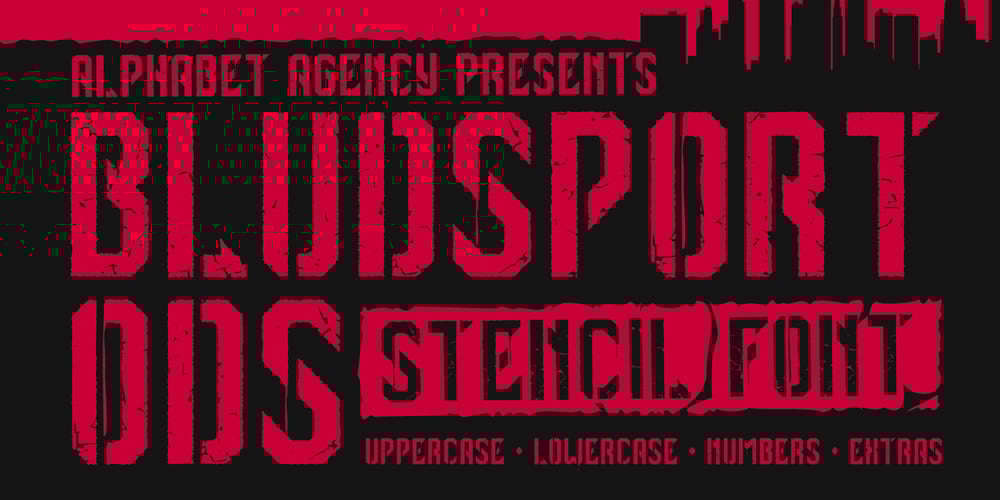
Bludsport ODS
Bludsport ODS font
Bludsport ODS Font Family was designed by Swinn Jonathan and published by Alphabet Agency. Bludsport ODS contains 1 styles and family package options. Alphabet Agency proudly presents Bludsport ODS font. The font design captures elements of war and gore with its grungy military stencil style.The font was designed for use in a variety of genres including in the film and television industry (war and horror), gaming industry, outdoors/survivalist industry and combat sport themes.Each font includes uppercase, lowercase, numbers, punctuation and basic Latin characters.